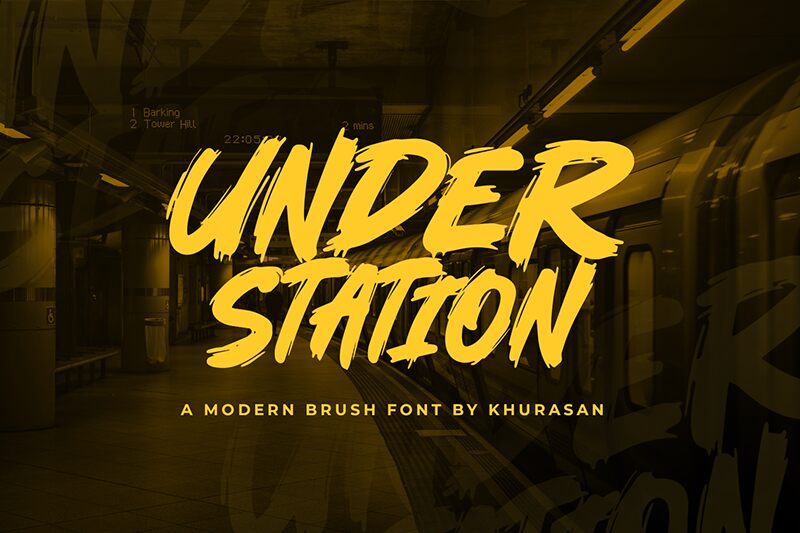
Under Station, a bold and modern brush font designed by Khurasan, adds a touch of creative flair to any project. With its bold weight and expressive style, this font is perfect for eye-catching headlines and attention-grabbing logos.
Its modern brush design lends itself well to projects in the fashion industry, such as trendy clothing brands or stylish accessories. Additionally, Under Station's unique aesthetic makes it suitable for contemporary art galleries or innovative tech startups looking to make a statement.
Let your creativity shine with Under Station's captivating charm.